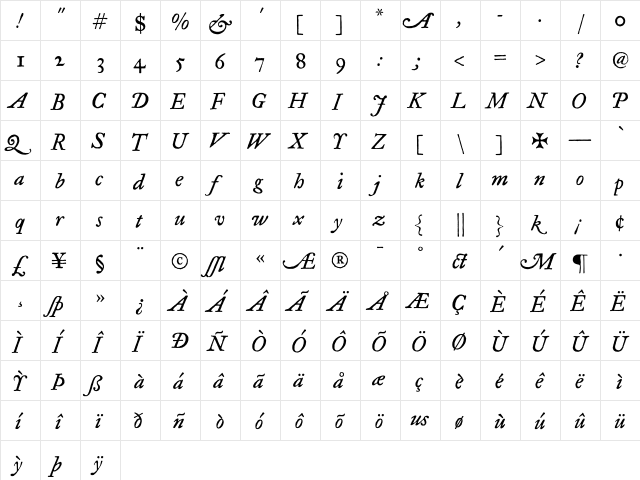
Historical FellTypeItalic
Design Context for Historical Typeface
Historical offers clean, dependable letterforms without strong stylistic allegiance, making it a practical choice for designers who need flexibility. The dynamic lean of this cut emphasises speed and emphasis in any layout.
Pro Tip: Use Historical for emphasis, pull quotes, and subheadings where its slanted energy can add rhythm to the layout.